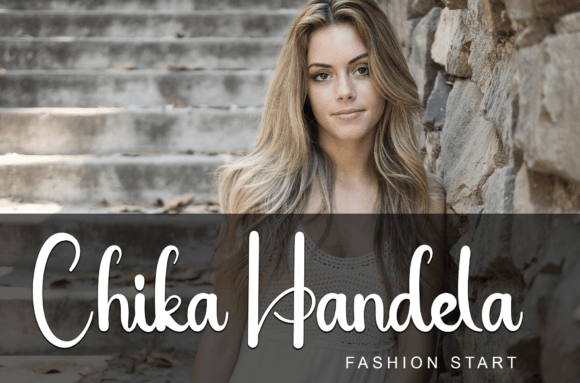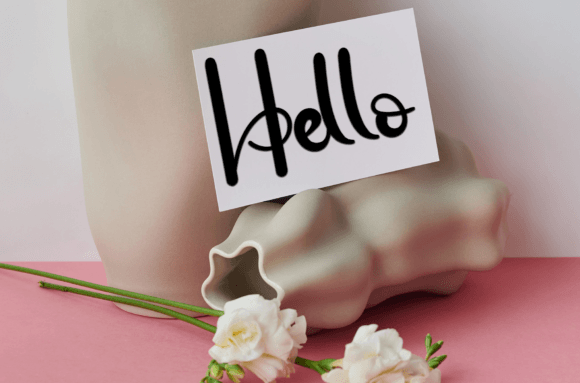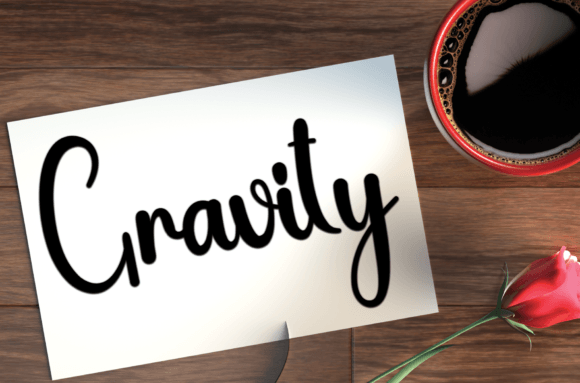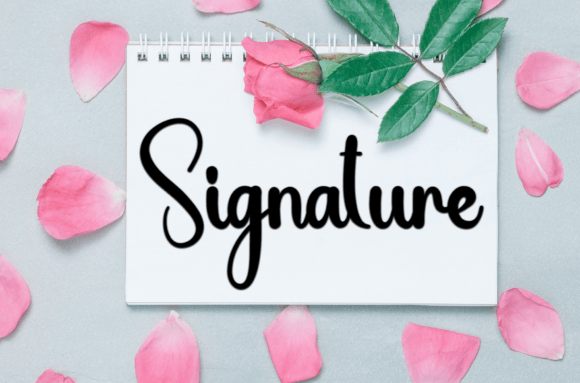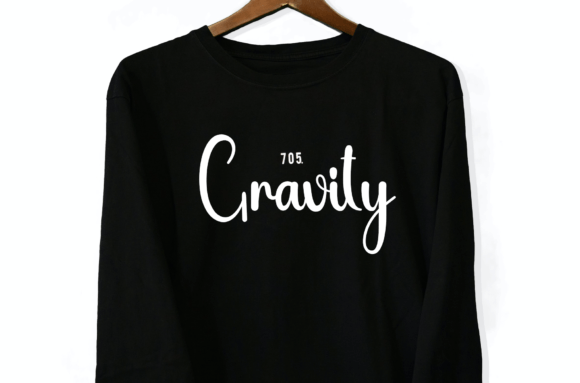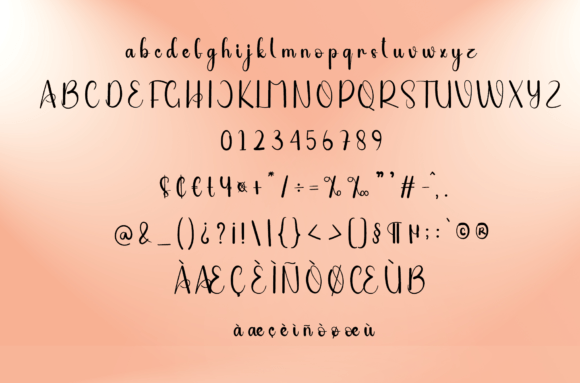
Roomline Font
About Roomline Font
Roomline font is a fun and friendly handwritten typeface designed to add warmth and personality to any creative project. Whether you’re working on crafts, digital designs, presentations, or greeting cards, this font is versatile and approachable, making it an excellent choice for a wide range of occasions.
Playful and Approachable Handwriting Style
The charm of Roomline font comes from its casual, easygoing handwriting style. Its friendly curves and natural strokes give your text a personal touch, making it perfect for projects that require a relaxed yet expressive look. This font balances playfulness with readability, ensuring your messages are both engaging and clear.
Versatile Uses for Roomline Font
Roomline fon fits beautifully across many applications, such as:
• Craft projects and DIY designs
• Digital artwork and web graphics
• Presentation slides and marketing materials
• Greeting cards and invitations
• Social media posts and banners
Its adaptability to different media makes it a reliable choice for designers seeking a handwritten aesthetic without compromising professionalism.
Adding Warmth and Personality
Using Roomline fon brings an inviting and warm atmosphere to your designs. It’s perfect for creating a sense of friendliness and connection, whether you’re communicating with customers, friends, or an audience. The font’s playful style helps your work stand out while remaining approachable.
Why Choose Roomline Font?
• Friendly, casual handwritten look
• Easy to read and highly legible
• Versatile for digital and print
• Ideal for a variety of design projects
• Adds warmth and personal charm
Final Thoughts on Roomline Font
In summary, Roomline fon is a delightful and approachable handwritten typeface perfect for crafts, digital designs, greeting cards, and more. Its friendly personality makes it a go-to choice for any project needing warmth and charm.